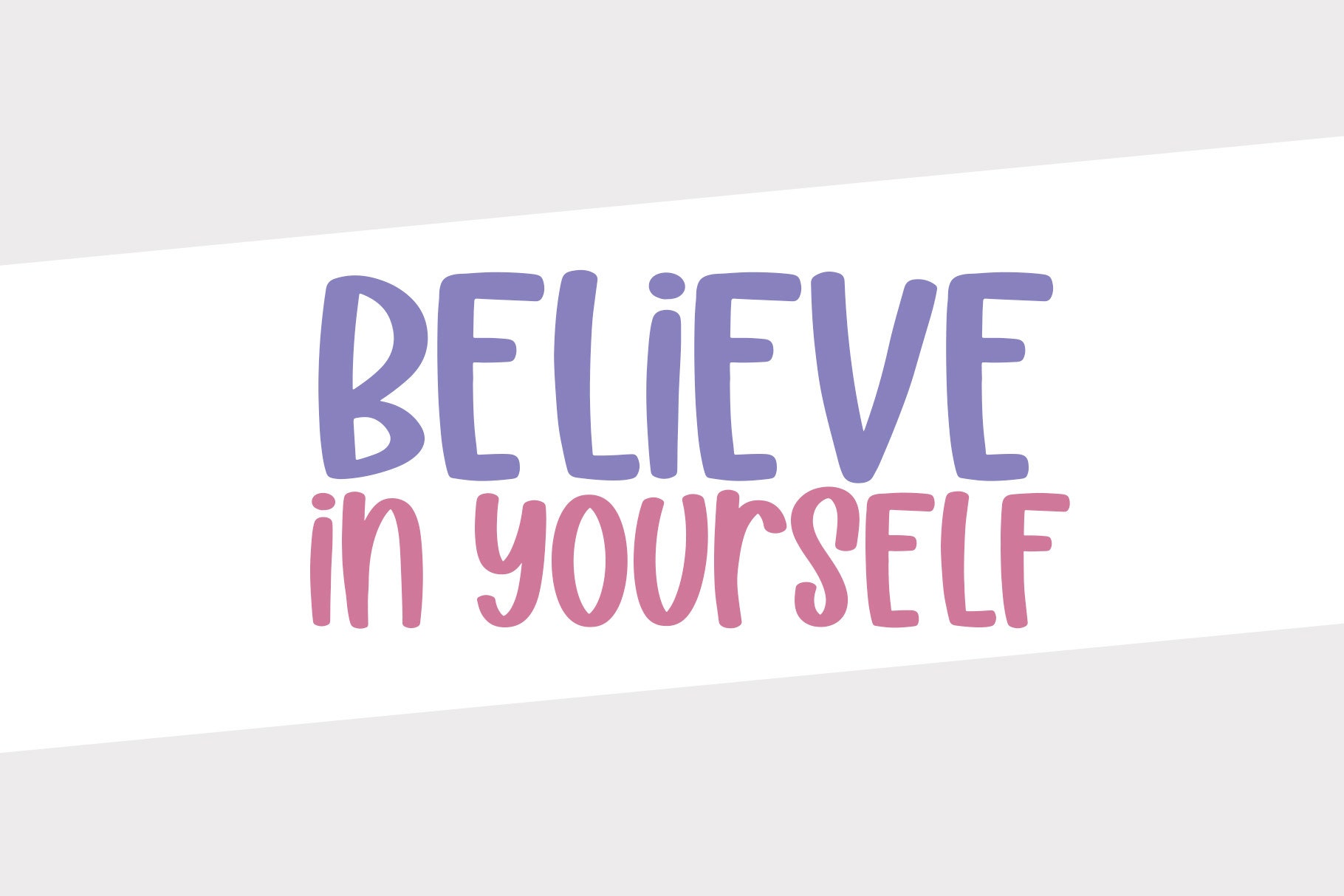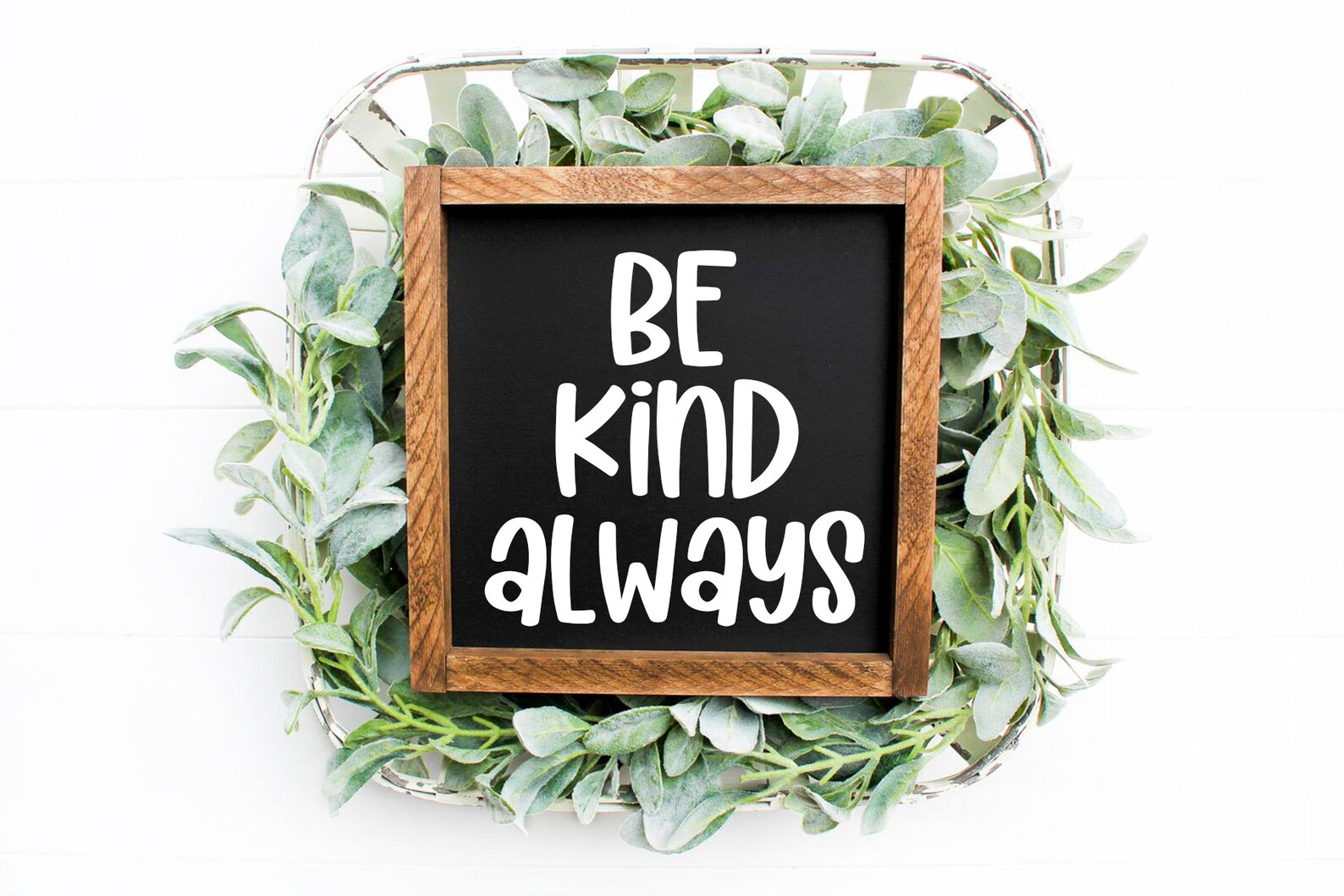
Sunday Scaries Font
Sunday Scaries Font - Simple and easy to use, this font will be very beautiful if you mix it with your various. Web sunday scaries is a casual handwritten font.
Simple and easy to use, this font will be very beautiful if you mix it with your various. Web sunday scaries is a casual handwritten font.
Web sunday scaries is a casual handwritten font. Simple and easy to use, this font will be very beautiful if you mix it with your various.
Simple and easy to use, this font will be very beautiful if you mix it with your various. Web sunday scaries is a casual handwritten font.
Web sunday scaries is a casual handwritten font. Simple and easy to use, this font will be very beautiful if you mix it with your various.
Simple and easy to use, this font will be very beautiful if you mix it with your various. Web sunday scaries is a casual handwritten font.
Web Sunday Scaries Is A Casual Handwritten Font.
Simple and easy to use, this font will be very beautiful if you mix it with your various.